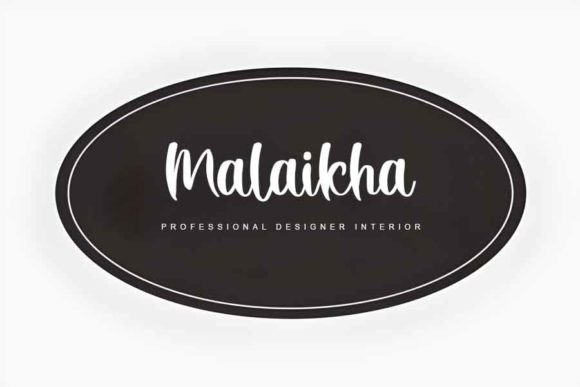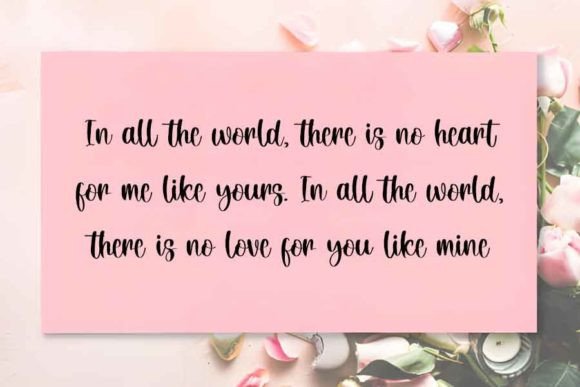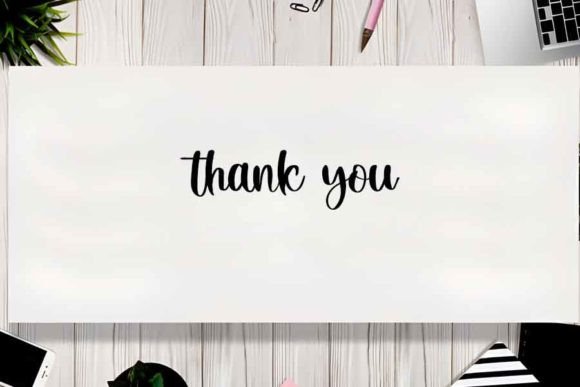
Blessing Font: Elevate Your Creations with this Beautiful Handwritten Font
Are you a designer or crafter looking for a unique and eye-catching font to elevate your creations? Look no further than the Blessing Font! This beautiful and delicate handwritten font is perfect for creating stunning logos, branding, and quotes that will leave a lasting impression.
What Makes Blessing Font So Special?
The Blessing Font features a retro style that adds a touch of elegance and sophistication to any design. Its delicate lines and curves create a sense of movement and fluidity, making it perfect for creating eye-catching and engaging content. Whether you’re designing a logo, creating a brand identity, or crafting a quote, the Blessing Font is sure to impress.
Key Features of Blessing Font
- Beautiful and delicate handwritten font: The Blessing Font is a carefully crafted handwritten font that exudes elegance and sophistication.
- Retro style: The font’s retro style adds a touch of nostalgia and charm to any design.
- Eye-catching and engaging: The font’s unique and delicate lines make it perfect for creating eye-catching logos, branding, and quotes.
- Perfect for designers and crafters: Whether you’re a professional designer or a crafter, the Blessing Font is the perfect choice for elevating your creations.
How to Use Blessing Font in Your Designs
The Blessing Font is incredibly versatile and can be used in a variety of design applications. Here are a few ideas to get you started:
- Logos and branding: Use the Blessing Font to create a unique and memorable logo that will set your brand apart.
- Quotes and posters: Create eye-catching quotes and posters that will grab attention and inspire your audience.
- Social media graphics: Use the Blessing Font to create stunning social media graphics that will elevate your online presence.
- Stationery and packaging: Add a touch of elegance to your stationery and packaging with the Blessing Font.
Why Choose Blessing Font?
With so many fonts to choose from, why should you choose the Blessing Font? Here are a few reasons:
- Unique and distinctive: The Blessing Font is a unique and distinctive font that will set your designs apart from the crowd.
- Elegant and sophisticated: The font’s elegant and sophisticated style makes it perfect for creating high-end designs.
- Easy to read: Despite its delicate lines, the Blessing Font is easy to read and understand, making it perfect for creating engaging content.
- Versatile: The Blessing Font can be used in a variety of design applications, from logos and branding to quotes and posters.
In conclusion, the Blessing Font is a beautiful and delicate handwritten font that is perfect for designers and crafters looking to elevate their creations. With its retro style, delicate lines, and elegant sophistication, this font is sure to impress. Whether you’re creating logos, branding, quotes, or social media graphics, the Blessing Font is the perfect choice. So why wait? Download the Blessing Font today and start creating stunning designs that will leave a lasting impression!